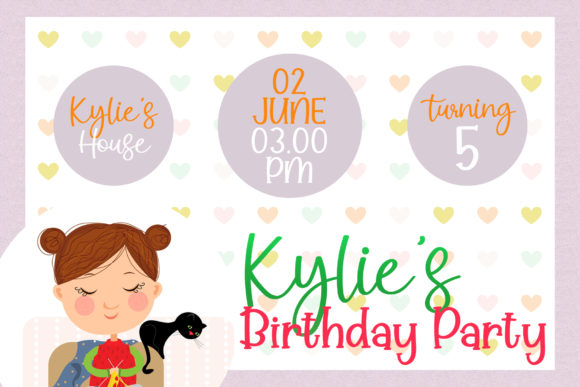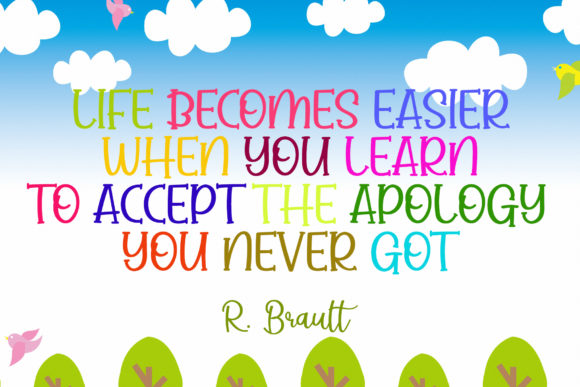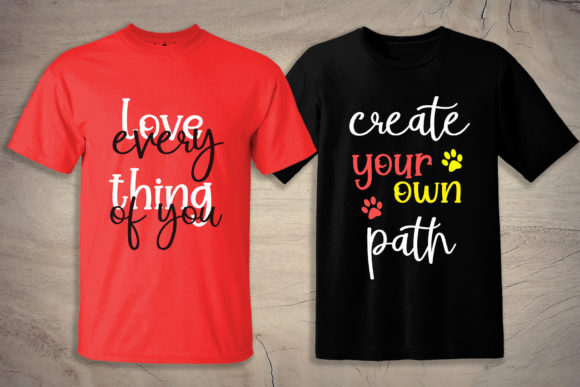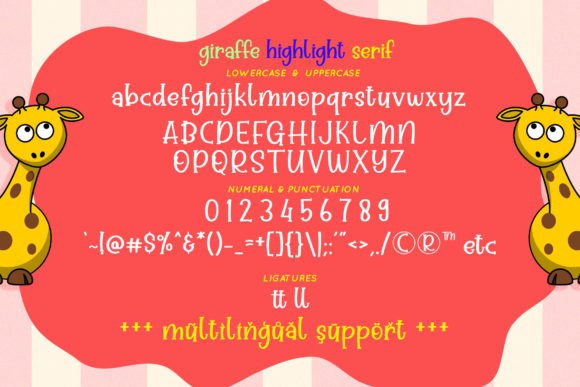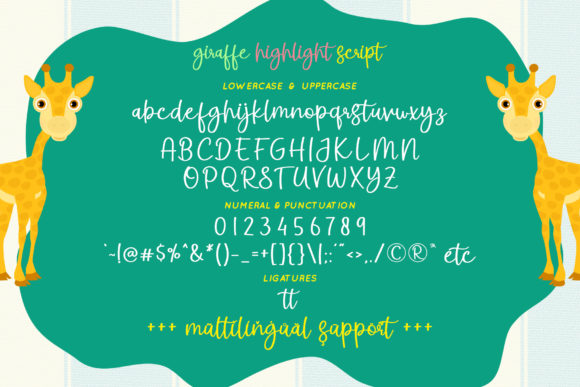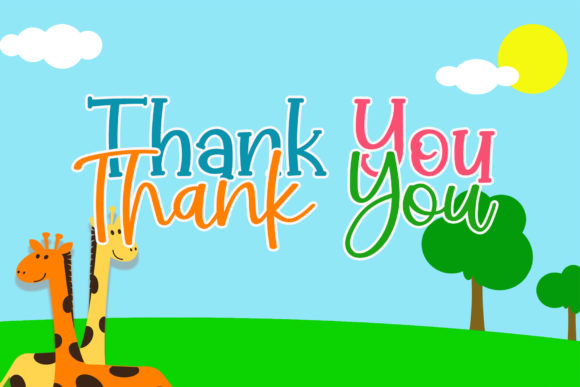
Giraffe Highlight Font
About Giraffe Highlight Font
Giraffe Highlight embodies fun, quirkiness and authenticity. This enchanting handwritten font will turn any creative idea into a true standout.